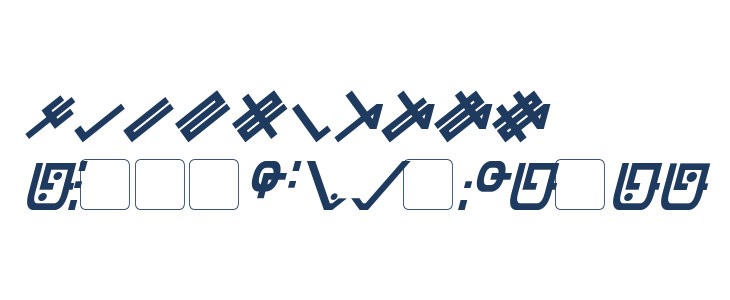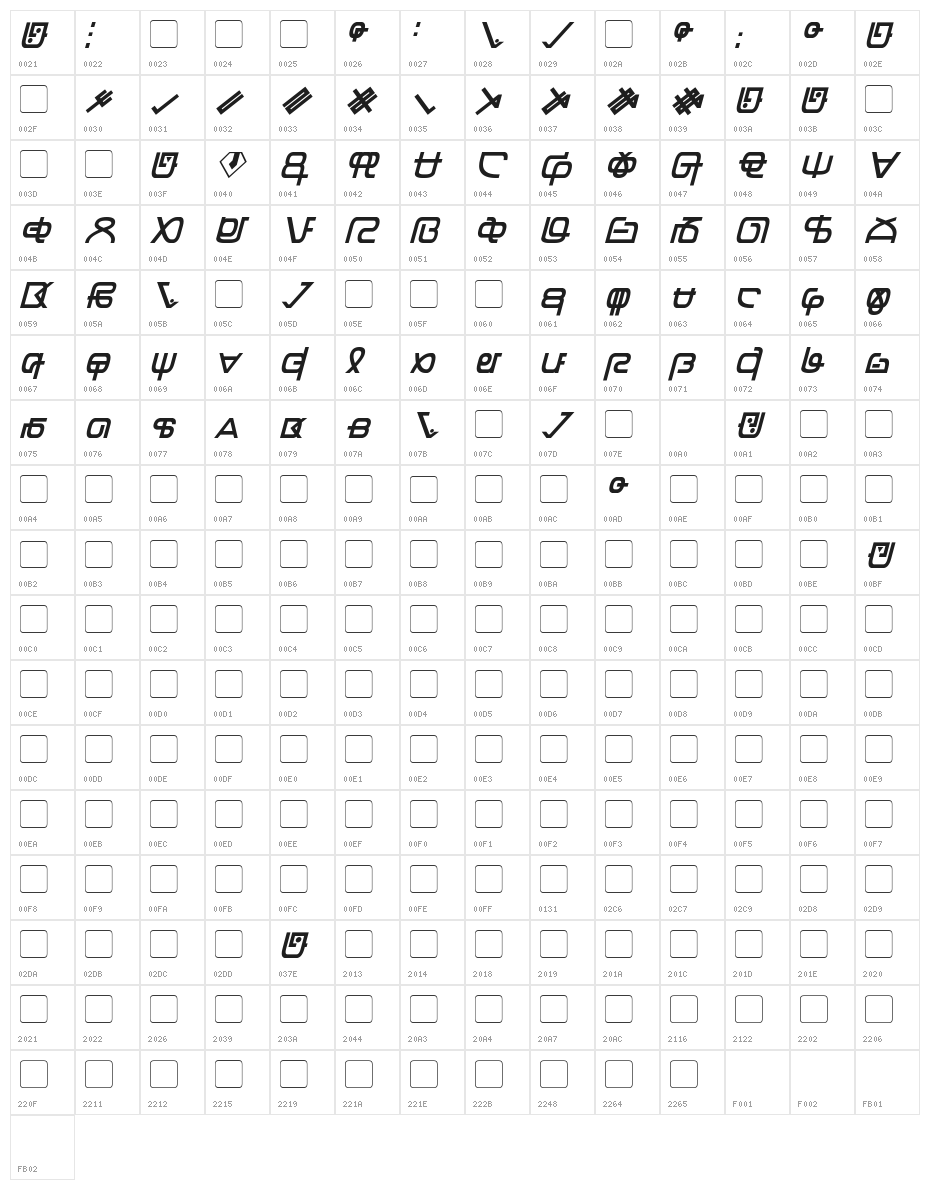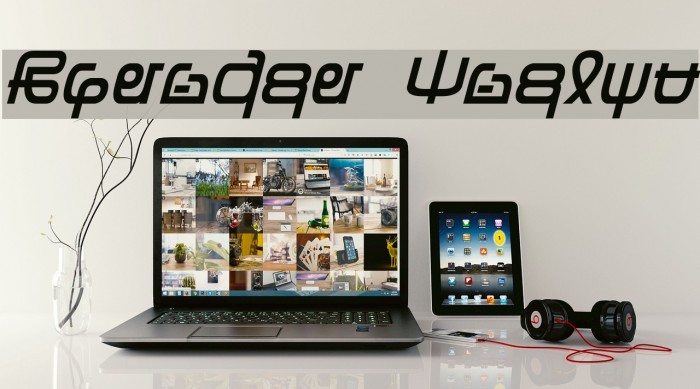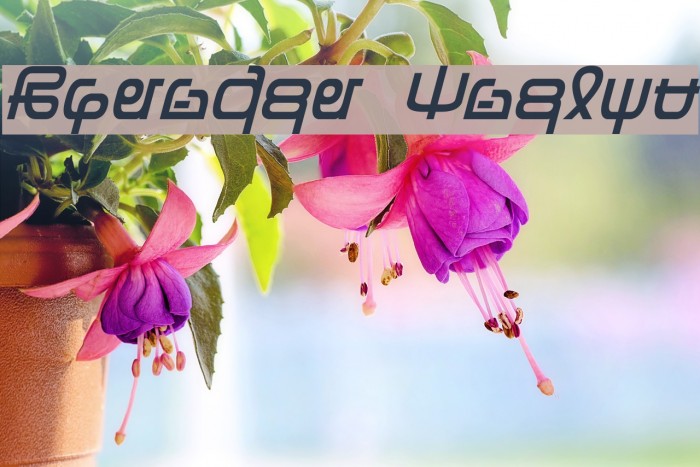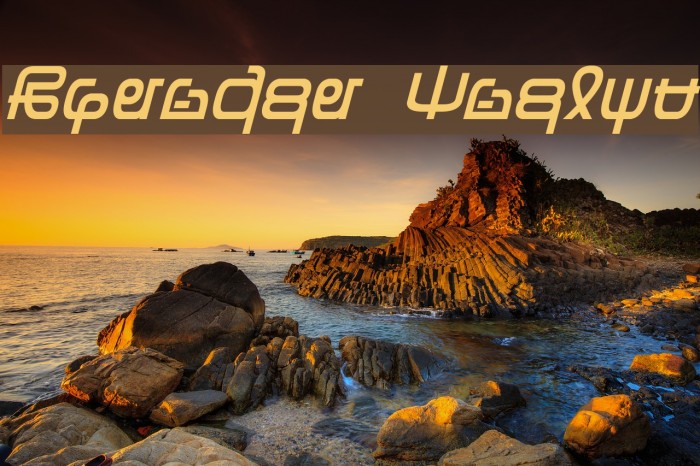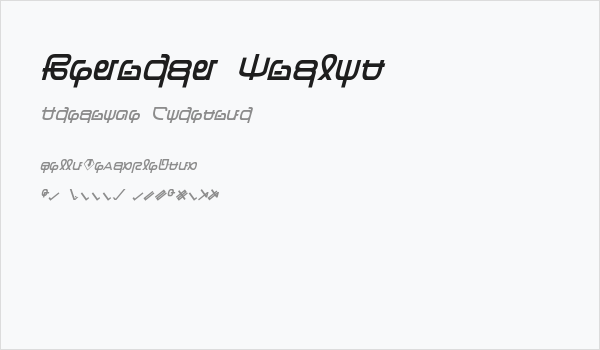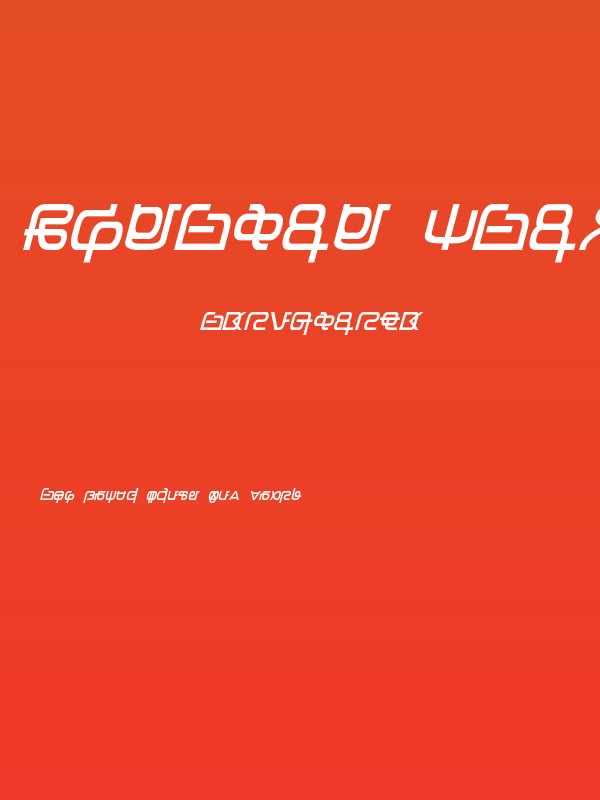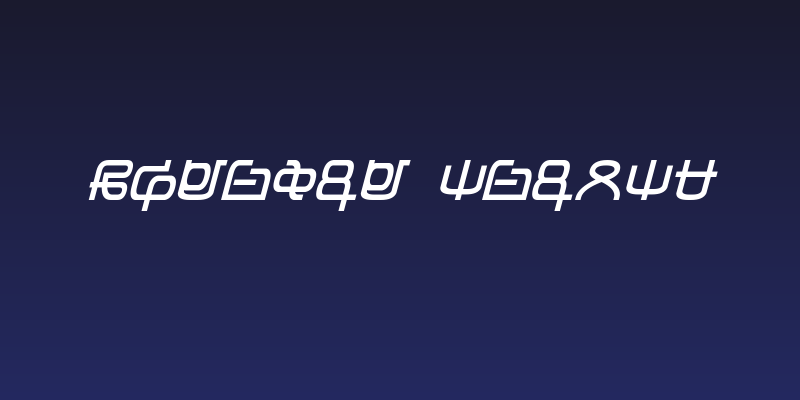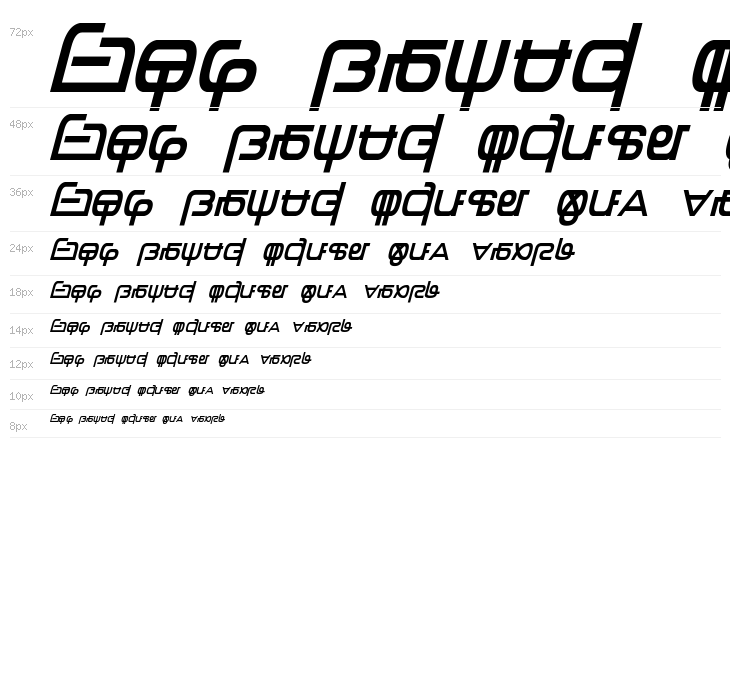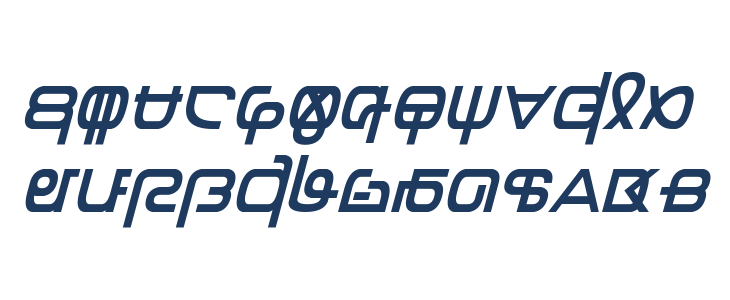
Zentran Italic Font
Zentran Italic Description
This font features a futuristic and angular design with a distinct italic slant, giving it a dynamic and forward-moving appearance. The characters are bold and geometric, with sharp edges and a consistent stroke width that enhances its modern aesthetic. The uppercase and lowercase letters maintain a uniform style, while the numerals and special characters complement the overall design. This font's unique style makes it stand out, suitable for projects that require a contemporary and edgy look.
| Proposed Projects | Ideal for sci-fi themed projects, technology branding, video game titles, and modern posters. |